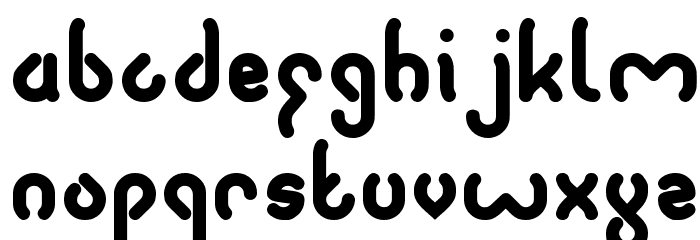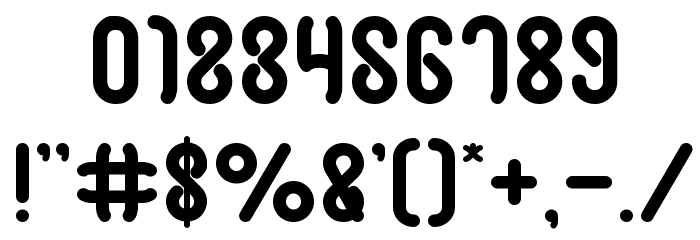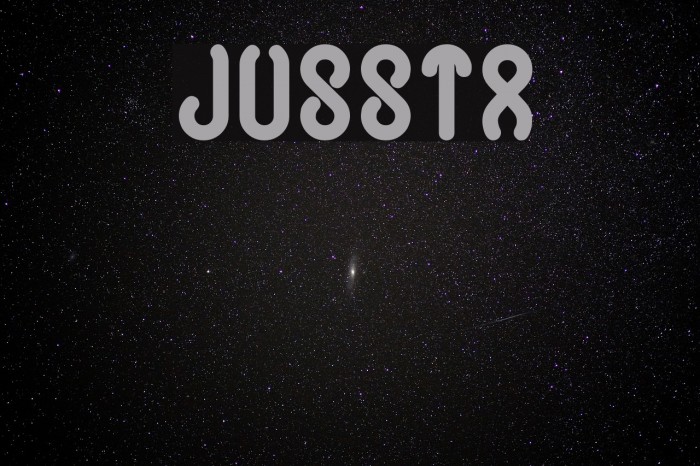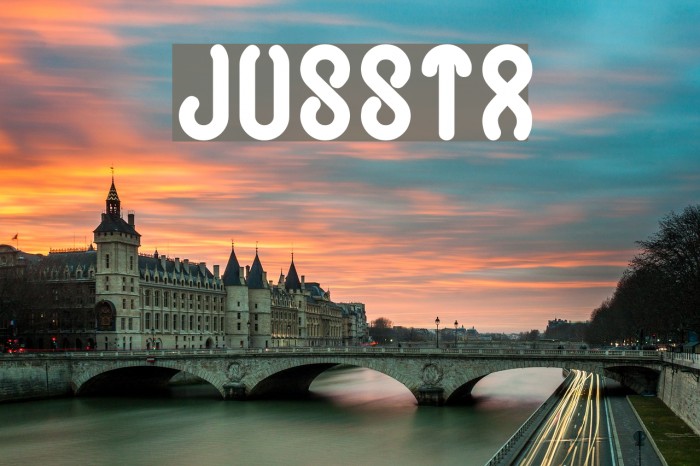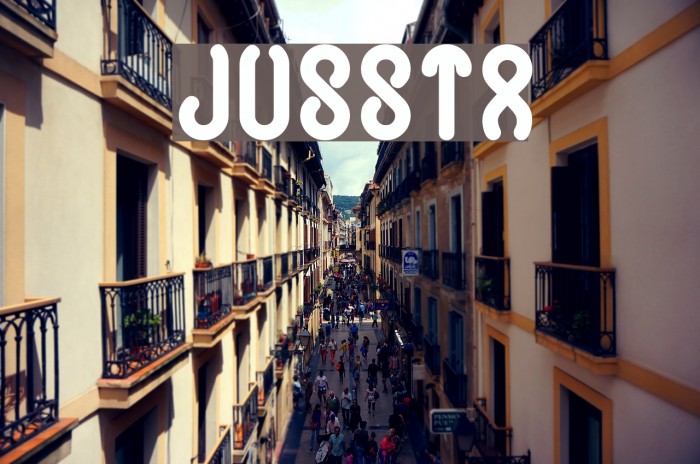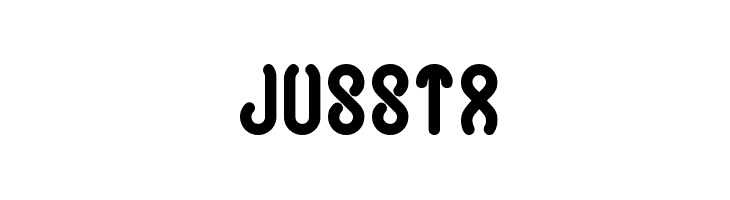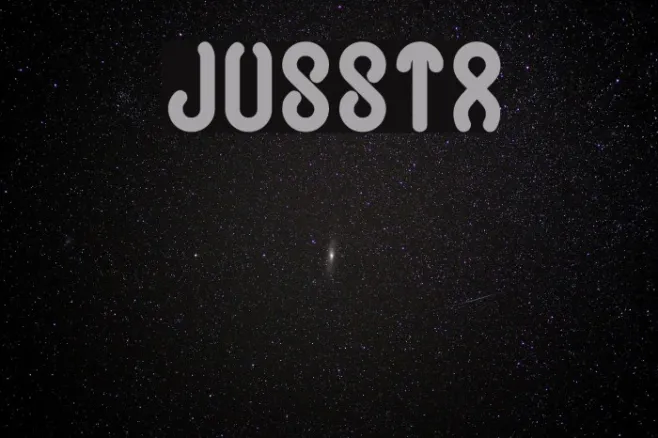
JUSSTA Font
This font features a bold and playful design with rounded edges and a consistent thickness throughout each character. The letters are uniquely crafted with a modern twist, incorporating a sense of fun and creativity. The uppercase and lowercase letters maintain a cohesive look, while the numbers and special characters complement the overall style. The font's design is eye-catching and suitable for projects that require a touch of whimsy and boldness.
A bold, playful font with rounded edges and consistent thickness.
- Proposed Projects: Ideal for children's books, playful branding, posters, and creative advertising.